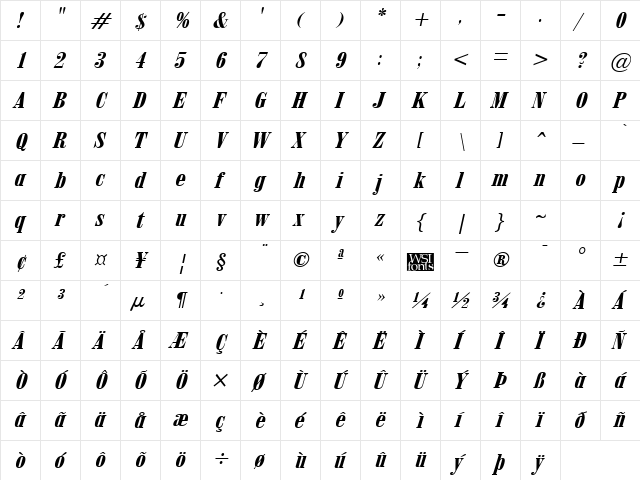
ObeliskGrand Italic
Design Context for ObeliskGrand Typeface
ObeliskGrand takes a measured approach to typography — its balanced proportions and neutral character make it a reliable workhorse for both digital and print work. The slanted form adds forward momentum and visual energy.